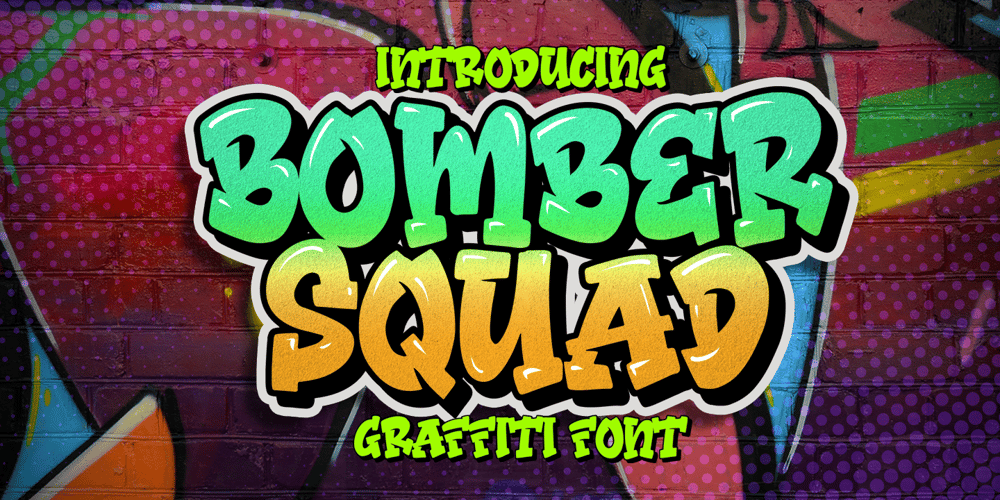
Bomber Squad Font Family was designed by Bangkit Tri Setiadi and published by Blankids. Bomber Squad contains 2 styles and family package options. Introducing of our new product the name is Bomber Squad Graffiti Font inspired by graffiti style with a fun theme very good for graffity poster, Hip Hop music, kids poster, flyer, childrenbook, cartoon, comic etc